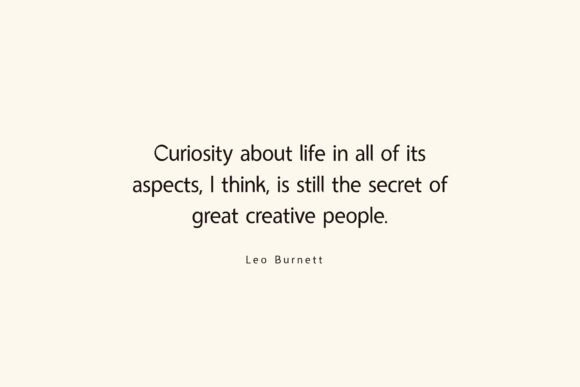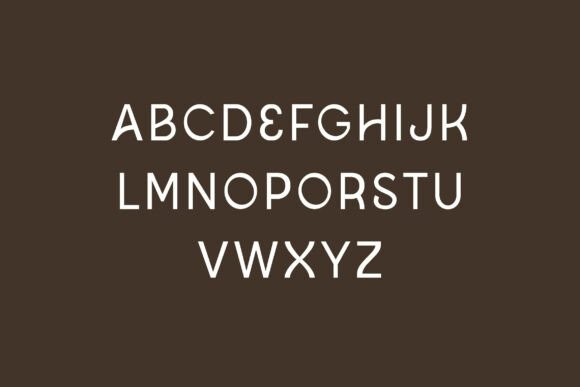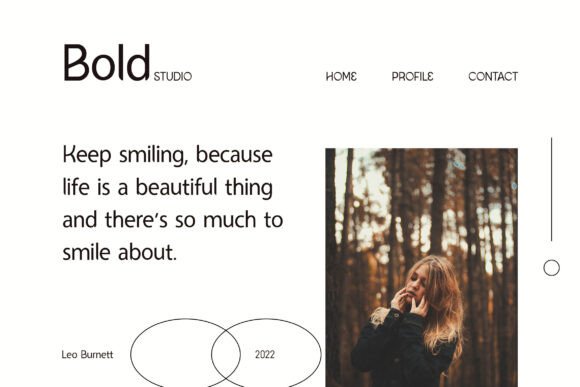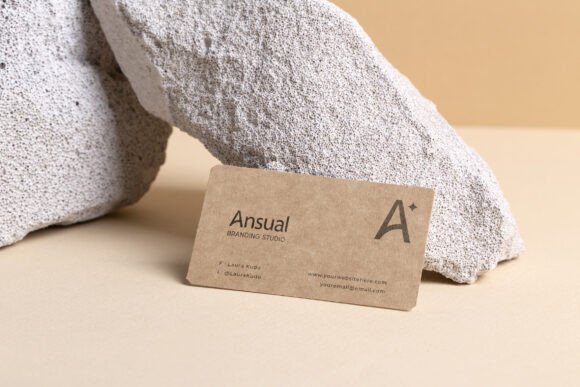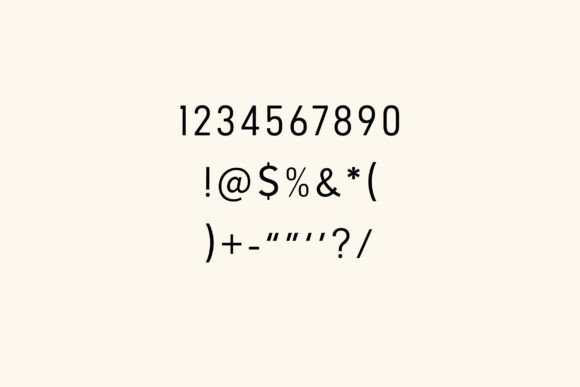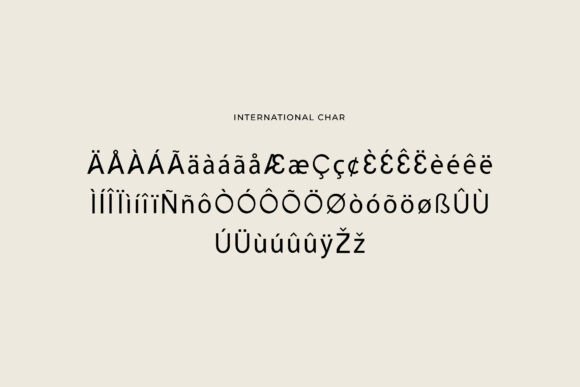
Introducing Bienvenido Font: Elevate Your Designs with Elegance and Boldness
Are you on the hunt for a font that exudes elegance, boldness, and versatility? Look no further than Bienvenido Font! This stunning sans serif font is making waves in the design community, and for good reason. With its incredibly versatile style, Bienvenido is perfect for creating a wide range of designs, from gorgeous wedding invitations and beautiful stationery art to eye-catching social media posts and more.
The Perfect Blend of Elegance and Boldness
Bienvenido Font strikes the perfect balance between elegance and boldness, making it an ideal choice for designers and crafters who want to create stunning visual content. Its clean lines, precise curves, and geometric shapes give it a modern and sophisticated look that’s sure to turn heads. Whether you’re designing for a wedding, a brand, or simply for fun, Bienvenido Font is the perfect choice.
One of the best things about Bienvenido Font is its incredible versatility. This font can be used for a wide range of design projects, including:
- Wedding invitations and stationery: Create beautiful, elegant wedding invitations, save-the-dates, and stationery that will leave a lasting impression on your guests.
- Social media posts: Make your social media posts stand out with Bienvenido Font’s bold and eye-catching style.
- Stationery art: Design stunning stationery art, including greeting cards, thank-you cards, and more.
- Branding and packaging: Use Bienvenido Font to create a cohesive brand identity that exudes elegance and sophistication.
- Digital products: Create engaging digital products, such as e-books, workbooks, and more.
Why Choose Bienvenido Font?
So, why should you choose Bienvenido Font for your next design project? Here are just a few reasons:
- Unique and eye-catching style: Bienvenido Font has a unique and eye-catching style that’s sure to grab attention.
- Highly versatile: This font can be used for a wide range of design projects, making it a great addition to your font library.
- Elegant and bold: Bienvenido Font strikes the perfect balance between elegance and boldness, making it perfect for designers who want to create stunning visual content.
- Easy to read: Despite its bold style, Bienvenido Font is easy to read, making it perfect for body text and headlines.
Tips for Using Bienvenido Font
Here are a few tips for using Bienvenido Font in your designs:
- Experiment with different sizes and colors: Bienvenido Font looks great in a variety of sizes and colors, so don’t be afraid to experiment and find the perfect combination for your design.
- Pair it with other fonts: Bienvenido Font pairs well with a variety of other fonts, so try pairing it with a script font or a serif font to create a unique and interesting contrast.
- Use it for headlines and titles: Bienvenido Font is perfect for headlines and titles, but it can also be used for body text and other design elements.
In conclusion, Bienvenido Font is a stunning sans serif font that’s perfect for designers and crafters who want to create elegant, bold, and versatile designs. With its unique and eye-catching style, high versatility, and ease of use, Bienvenido Font is a great addition to any font library. Whether you’re designing for a wedding, a brand, or simply for fun, Bienvenido Font is sure to elevate your designs and help you create stunning visual content.